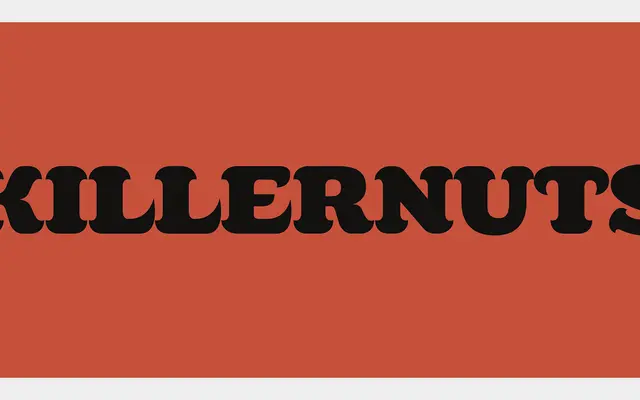
Killernuts
A wood type display face whose serifs are drawn to resemble brush strokes, blending Western letterform structure with the gestural energy of Japanese Shodo calligraphy.
Built on wood type proportions, Killernuts replaces conventional serifs with forms that echo the tapered, expressive marks of Japanese brush calligraphy. The result is a Latin display face with an unusual cultural charge, suited to posters, logotypes and headline work where strong personality is required. The fusion of Eastern brushwork and Western wood type gives it a distinct visual tension that sets it apart from standard decorative serifs.
Classified as display due to its wood type origins and highly expressive serifs rendered to resemble brush strokes; the serif treatment draws from Japanese Shodo calligraphy, placing it in decorative rather than conventional serif territory.